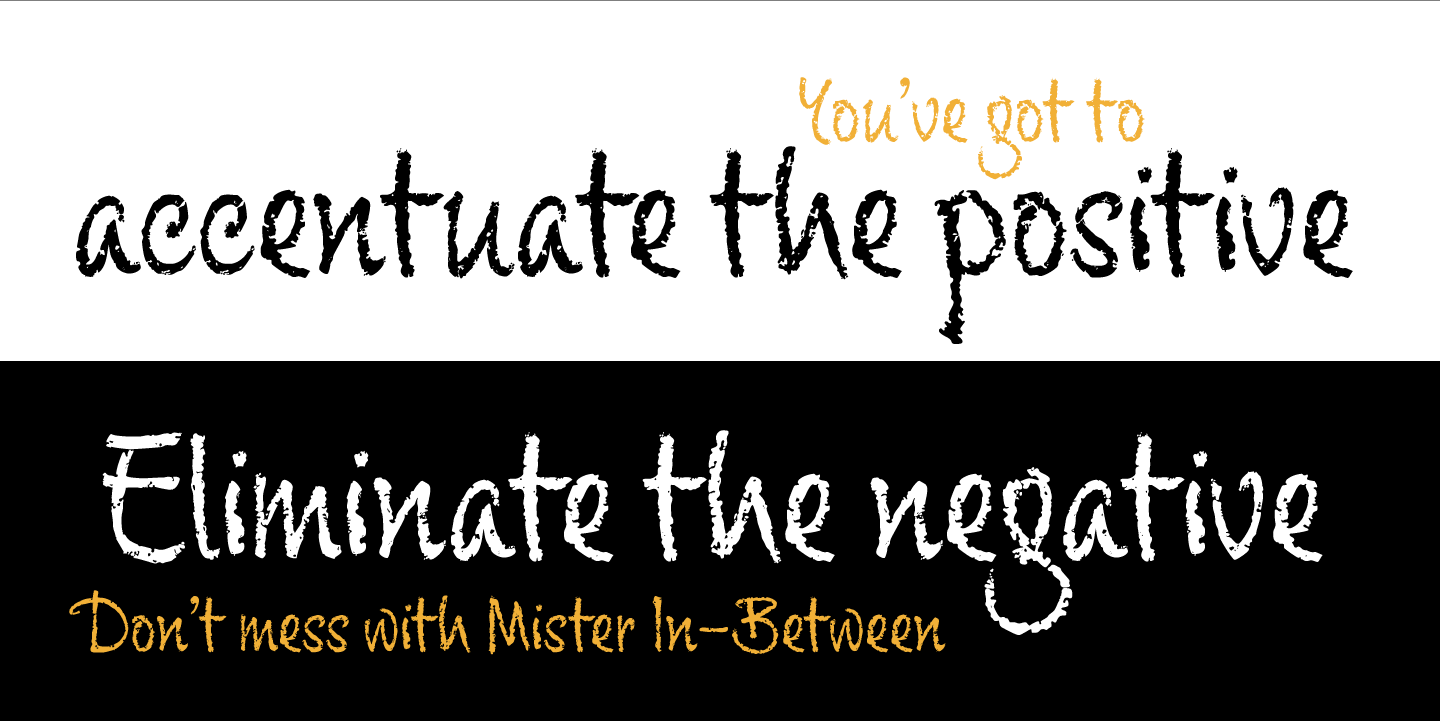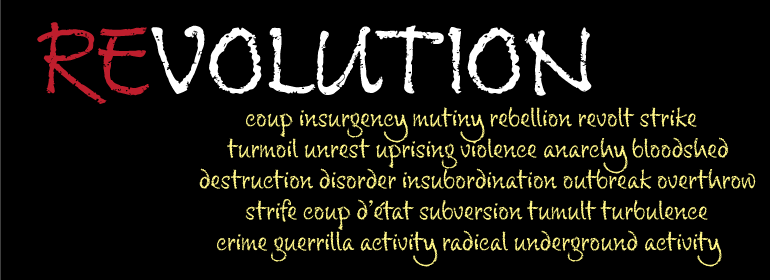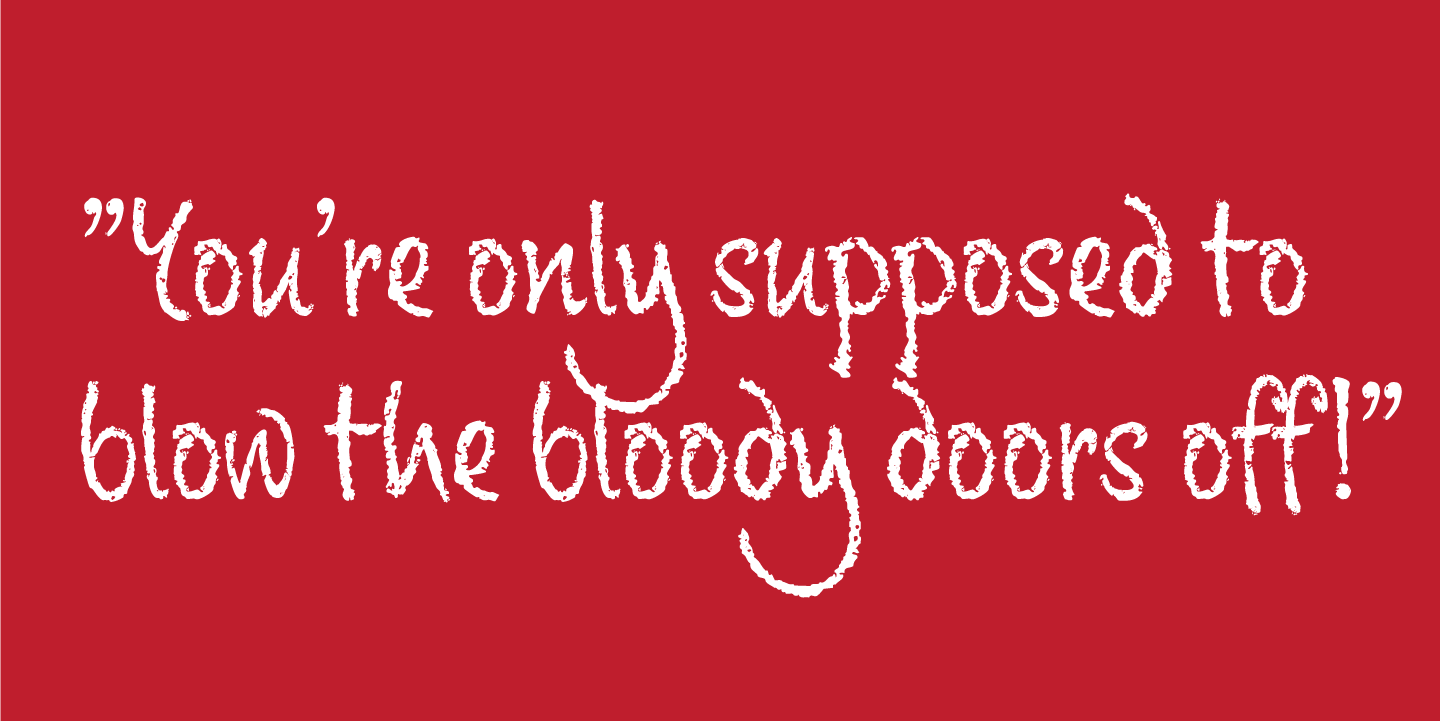
Discover the Charm of Chalky Font: A Unique and Versatile Typeface
Are you a designer or crafter looking for a font that can add a touch of nostalgia and whimsy to your projects? Look no further than Chalky Font, a chalk on blackboard-style lettering that is sure to capture the hearts of your audience. Originally designed as a supermarket point-of-sale font, Chalky has evolved into a versatile typeface that can be used in a variety of creative applications.
The Origins of Chalky Font
Chalky Font was first created as a practical solution for supermarket point-of-sale displays. The font’s designers aimed to create a typeface that would mimic the look of chalk writing on a blackboard, but with a more condensed and legible design. This made it perfect for use in signage and displays where space was limited, but clear communication was essential.
What Makes Chalky Font Special?
So, what sets Chalky Font apart from other fonts in its class? For starters, its unique chalk on blackboard style gives it a distinctive and eye-catching appearance that is sure to grab attention. Additionally, Chalky is more condensed than most fonts of this style, making it ideal for use in longer settings without sacrificing legibility.
This versatility makes Chalky Font a great choice for a wide range of applications, from headlines and subtext to signage and packaging. Whether you’re designing a flyer, brochure, or website, Chalky Font can add a touch of personality and charm to your text.
Using Chalky Font in Your Designs
One of the best things about Chalky Font is its ease of use. The font is highly legible, even at smaller sizes, making it perfect for use in body text or captions. However, it’s also dramatic and attention-grabbing enough to be used as a headline or title font.
Here are a few ideas for using Chalky Font in your designs:
- Headlines and subtext: Use Chalky Font to add a touch of personality to your headlines and subtext. The font’s unique style and condensed design make it perfect for use in titles and subtitles.
- Signage and packaging: Chalky Font is a great choice for signage and packaging design, particularly for businesses that want to create a vintage or retro look.
- Digital and print media: Whether you’re designing a flyer, brochure, or website, Chalky Font can add a touch of whimsy and charm to your text.
Tips for Working with Chalky Font
Here are a few tips for getting the most out of Chalky Font:
- Experiment with font sizes: Chalky Font is highly legible, even at smaller sizes. Experiment with different font sizes to find the perfect balance for your design.
- Play with color: Chalky Font looks great in a variety of colors, from bright and bold to muted and pastel. Experiment with different color schemes to find the perfect look for your design.
- Combine with other fonts: Chalky Font pairs well with a variety of other fonts. Try combining it with a sans-serif font for a modern look or a serif font for a more traditional feel.
| Author | Alan Meeks |
Chalky Font is a unique and versatile typeface that is sure to add a touch of personality and charm to your designs. Its chalk on blackboard style and condensed design make it perfect for use in a wide range of applications, from headlines and subtext to signage and packaging.
Whether you’re a designer or crafter, Chalky Font is definitely worth checking out. So why not give it a try and see how it can elevate your designs to the next level?